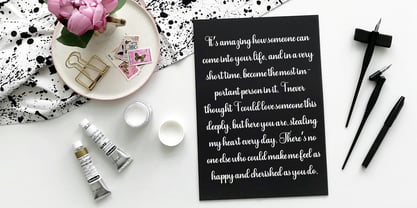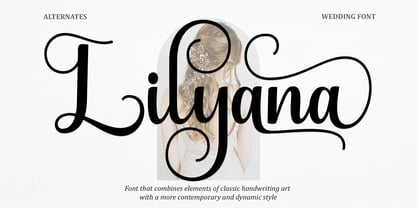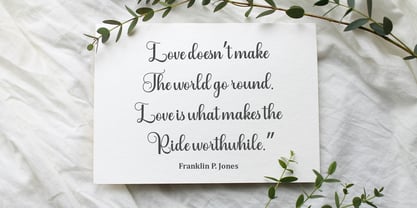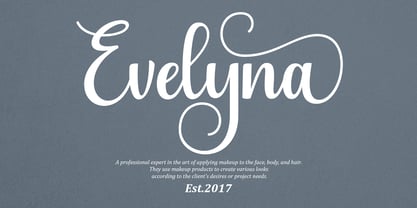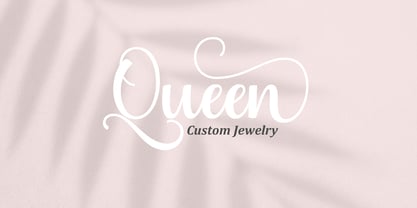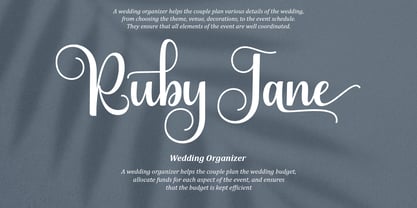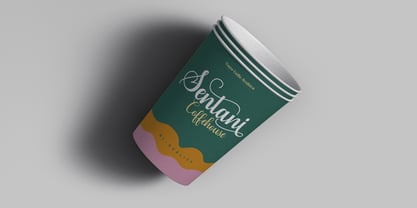
Lilyana
by Natural Ink
The Lilyana Font Family was designed by Arif Gunawan and published by Natural Ink. Lilyana contains 1 styles.
Introducing the Lilyana Script, designed distinctively for wedding elegance. The artistry and importance of depicting elements such as the couple’s names, the special date, and the grand venue demand an unforgettable typeface. Lilyana Script embodies this elegance, flourishing a perfect harmony of aesthetic charm and crystal-clear legibility. Its special touch infuses your wedding details with a unique charm, ensuring your guests instantly recognize and remember the forthcoming joyous occasion. Its sophisticated design guarantees seamless readability, illuminating the crucial details with sophistication and grace.